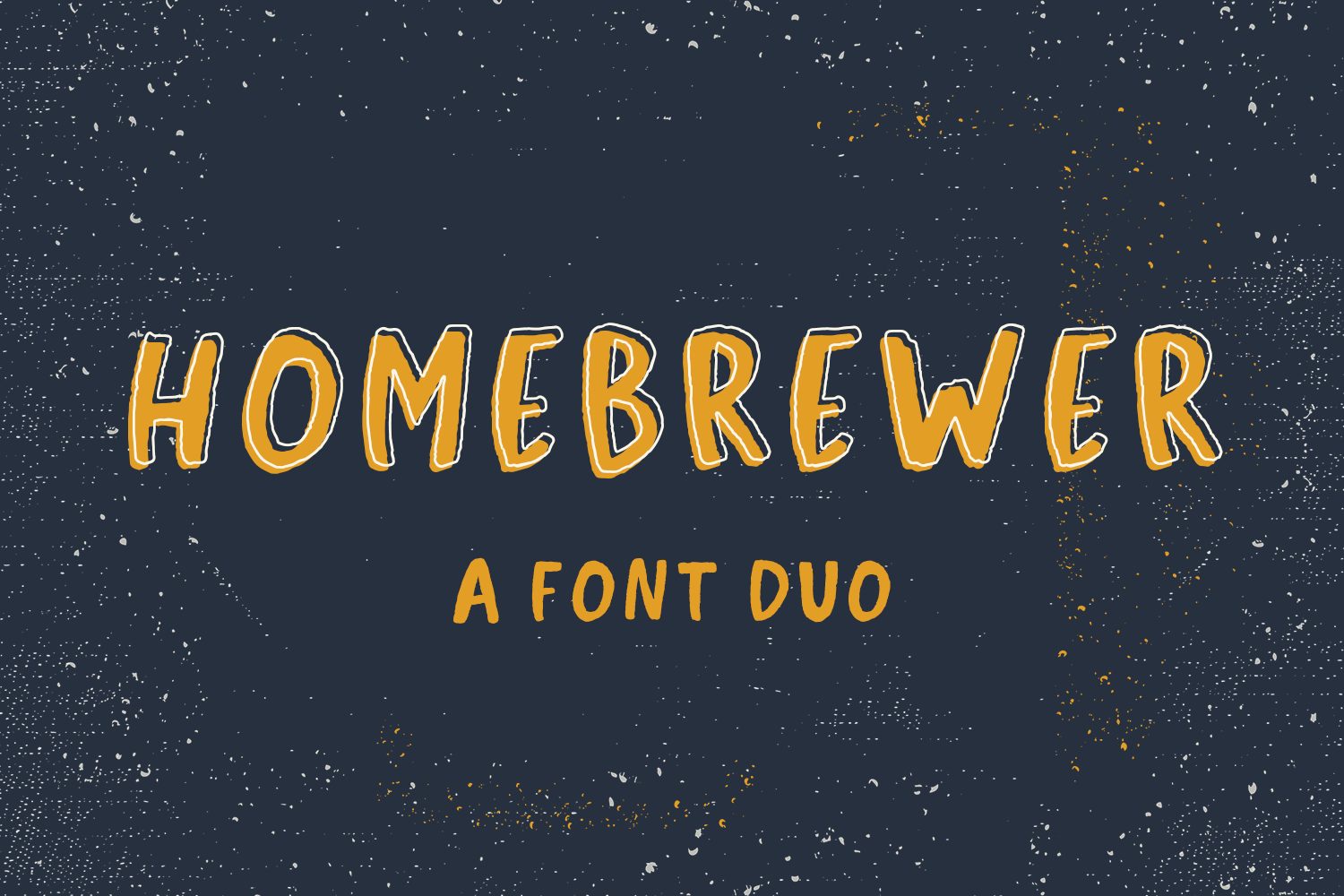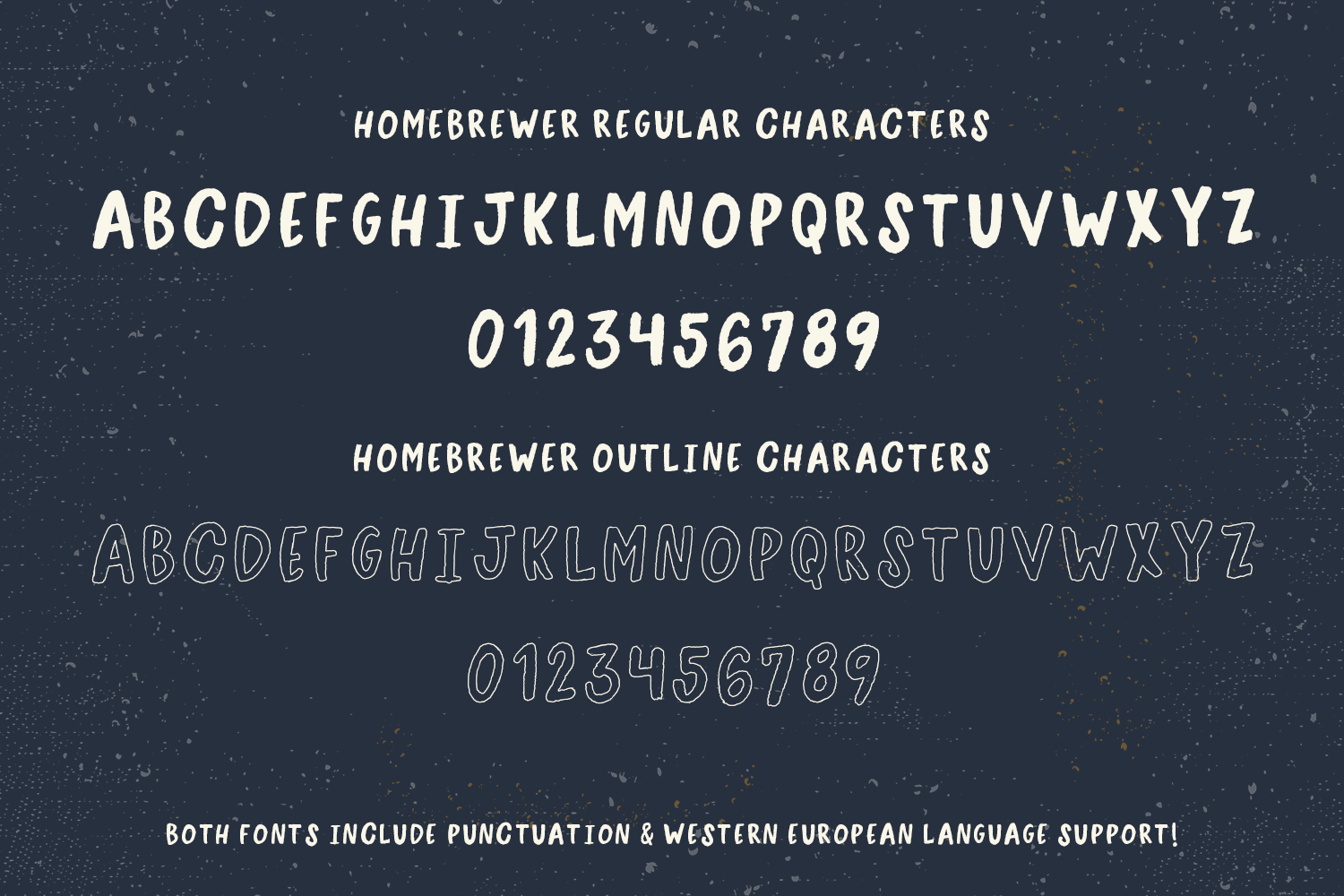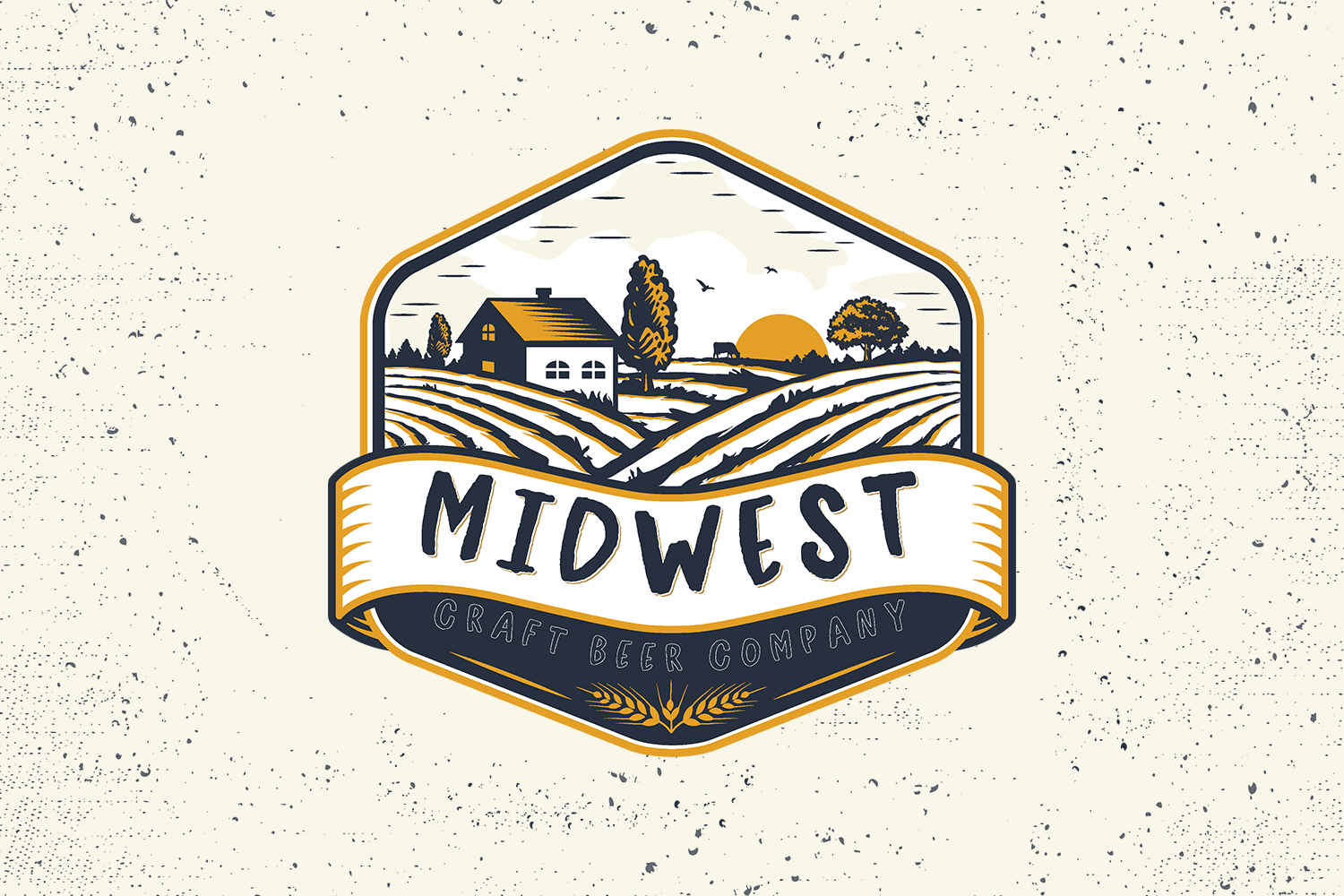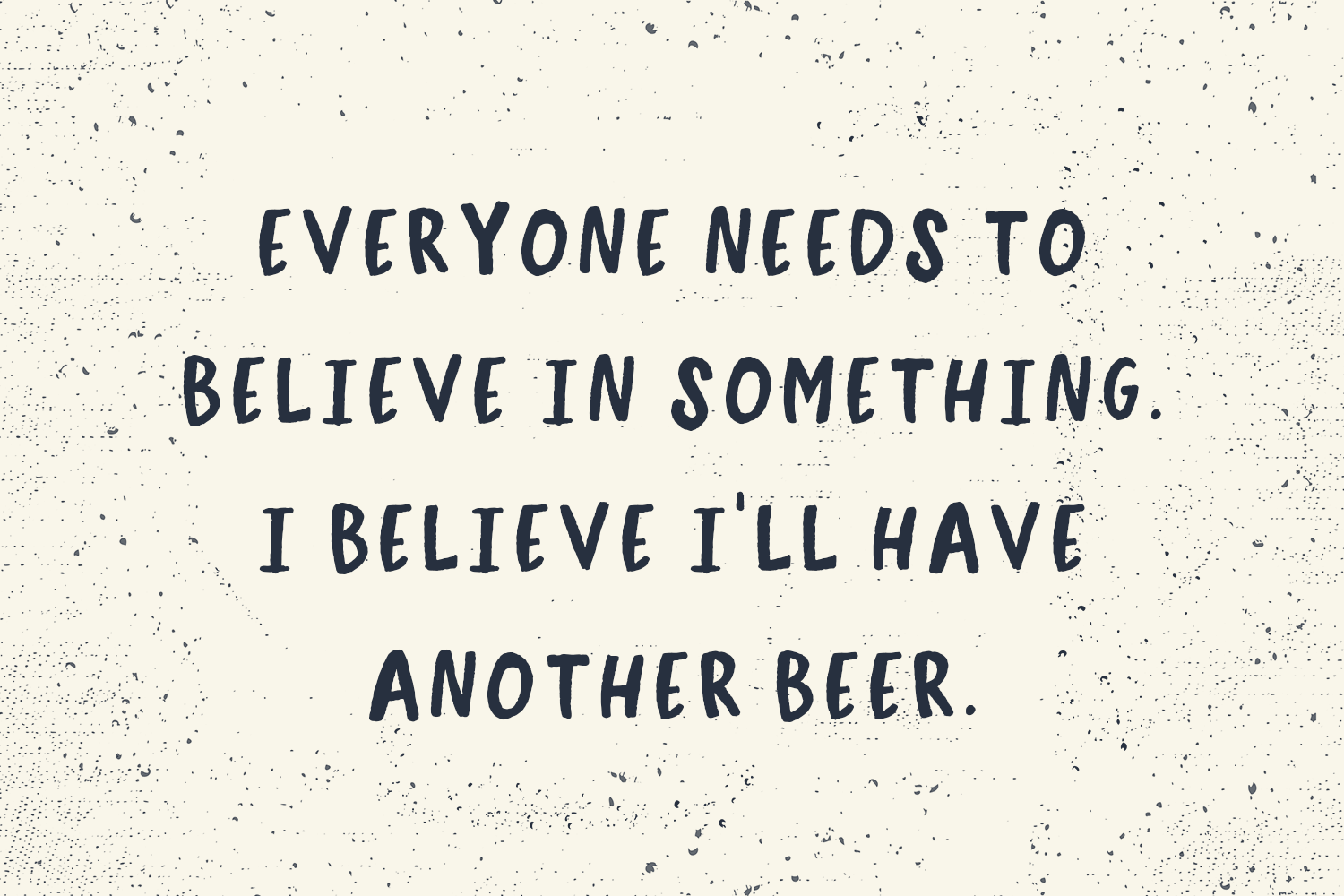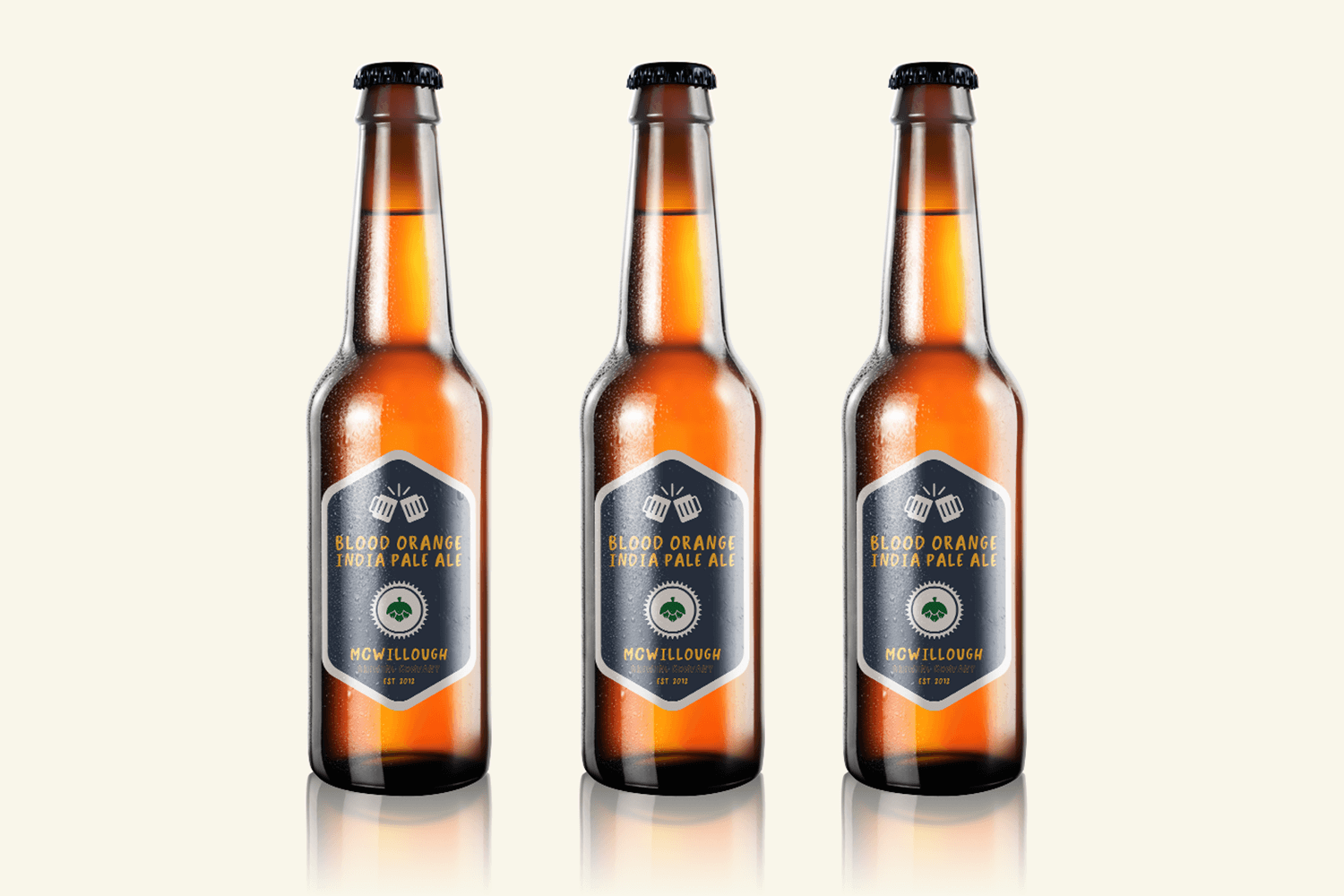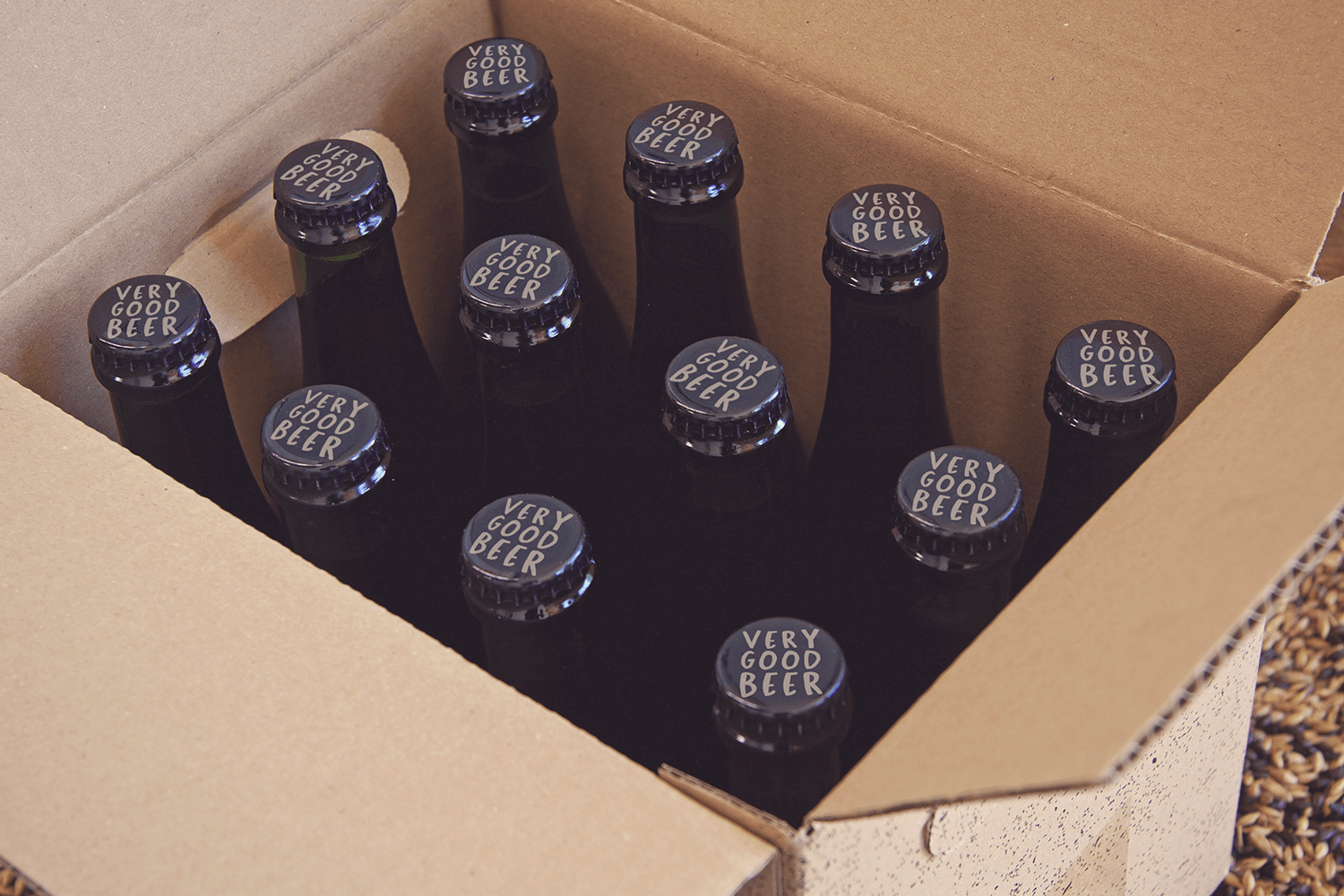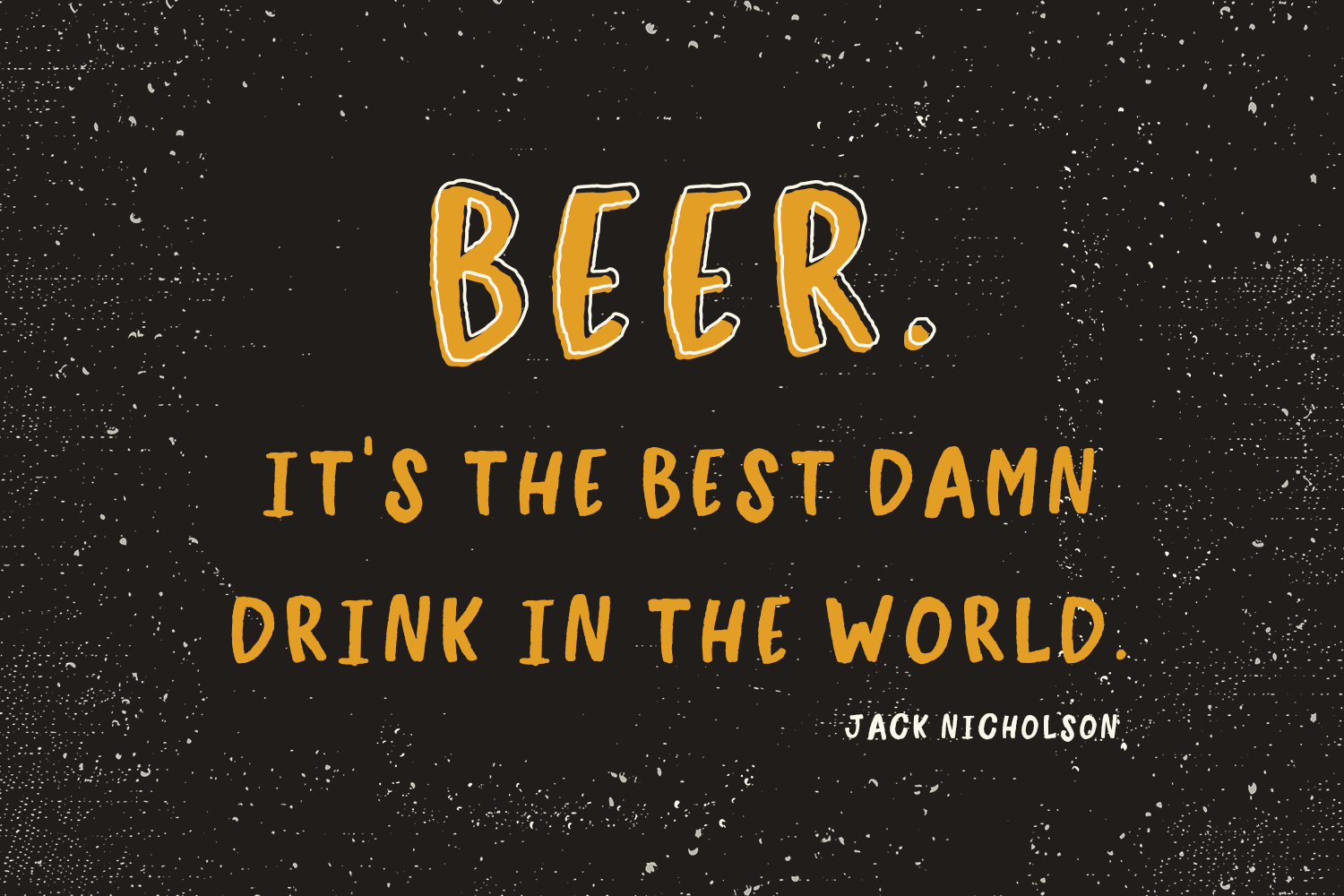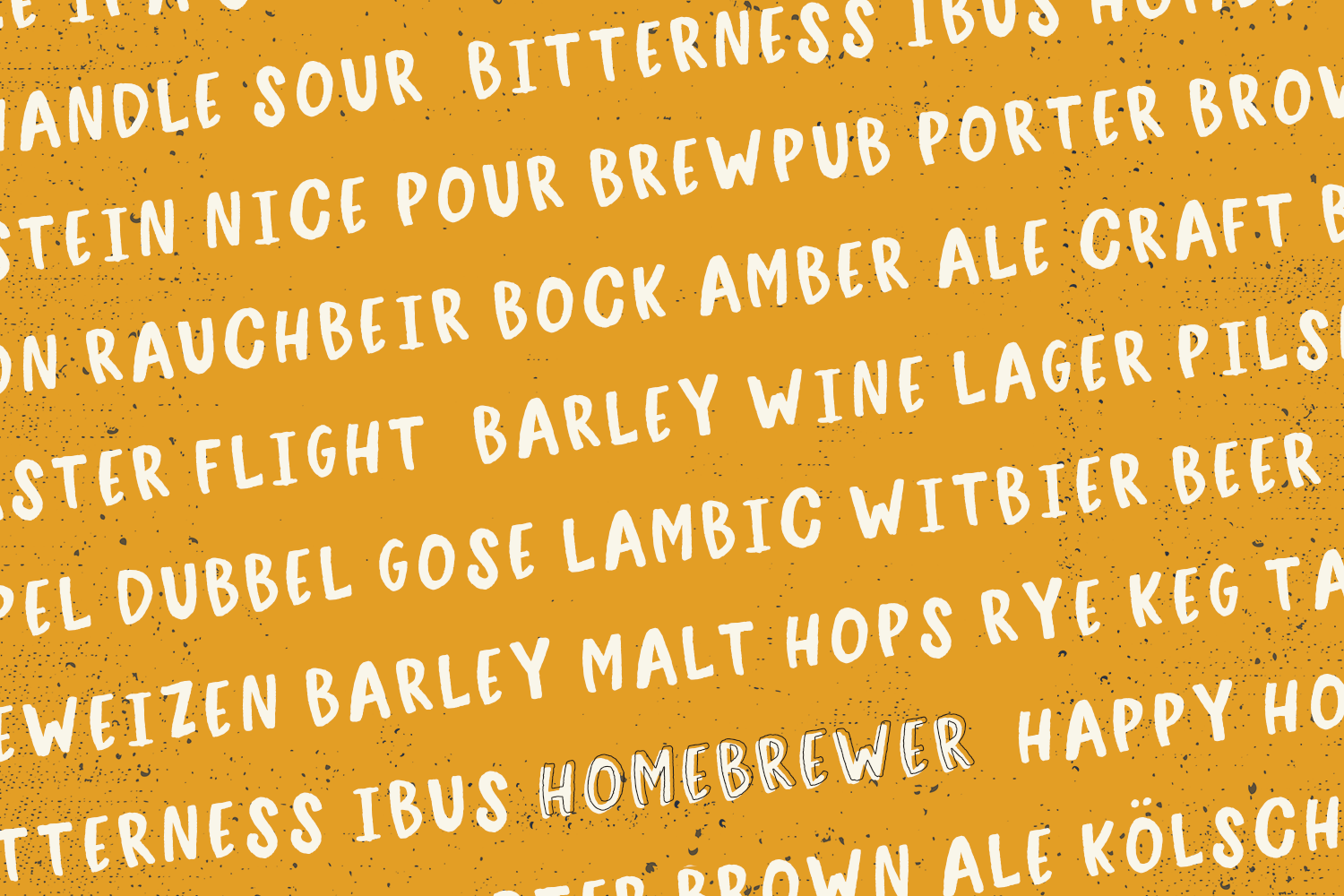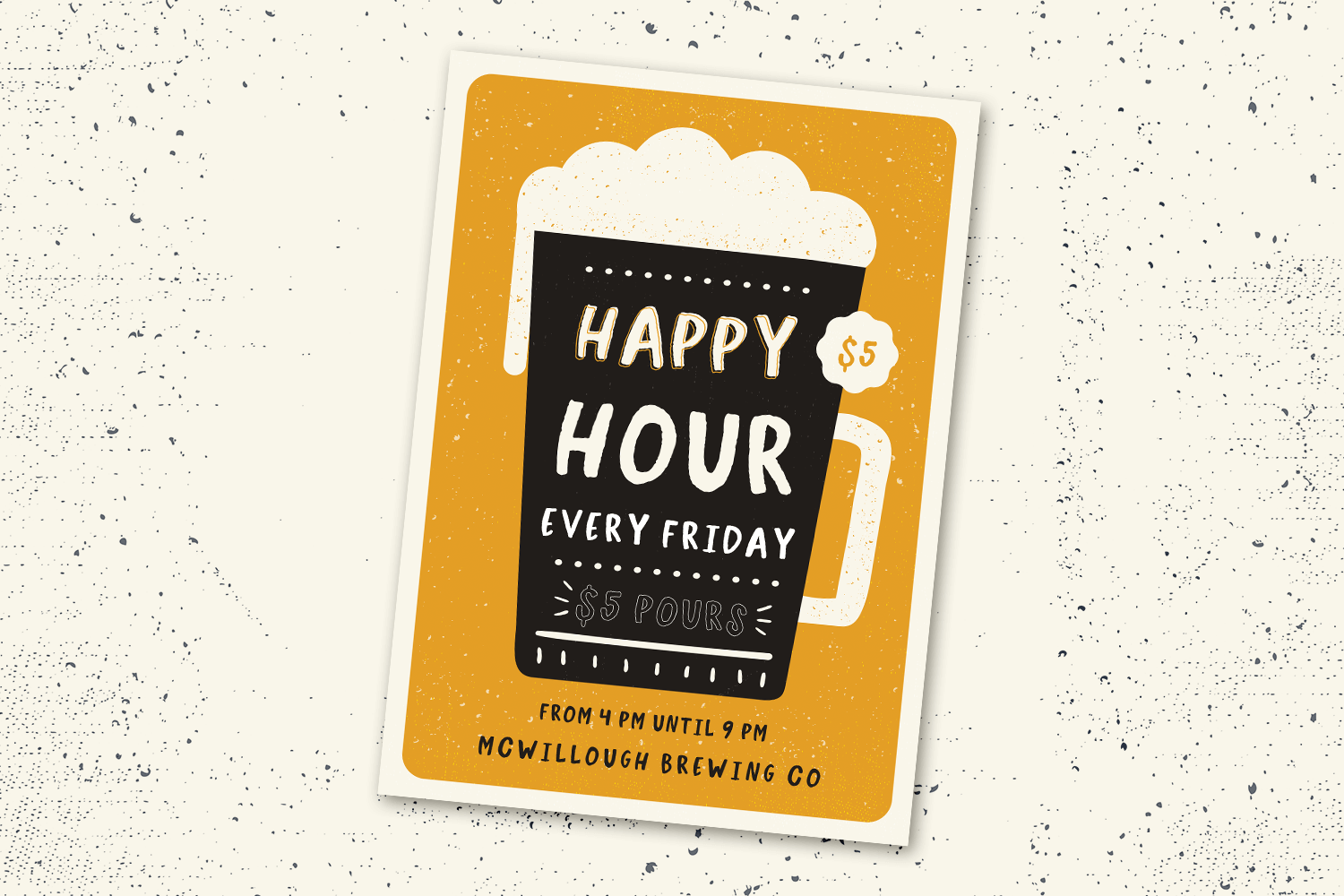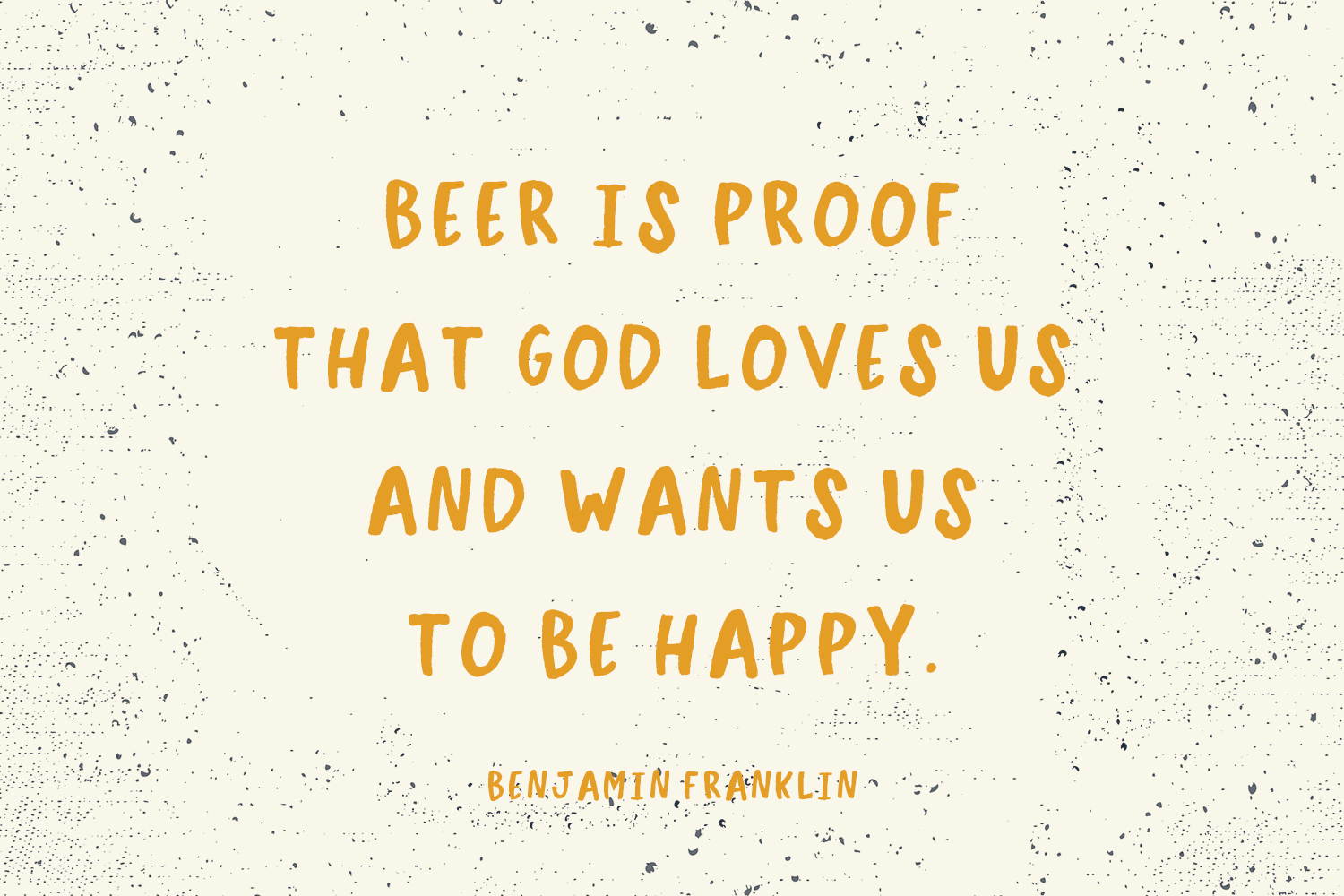
Homebrewer Sans and Outline Font Duo
Homebrewer Sans and Outline Font Duo is a fantastic pairing for brewery brands and bold design.
Homebrewer Sans is an excellent fit for:
– crafting projects that need a handlettered or masculine feel
– big, bold headings
– quote graphics
– and obviously, beer 🙂
– full uppercase characters (all caps font)